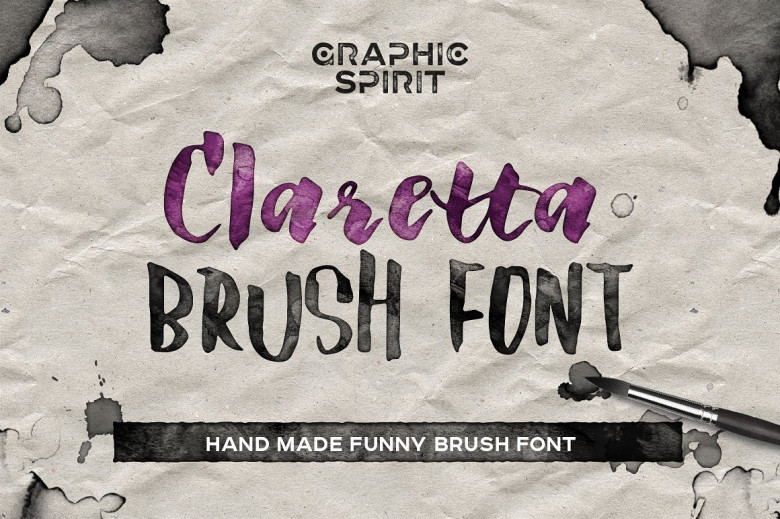
Claretta Brush Font
Introduced to you hand made funny brush font. Introducing Claretta Font. Claretta designed and shared by Graphic Spirit. Claretta is the best fonts and very elegant to beautify your design. suitable in use for product brand, label, banner, product cover, photo, decoration, business card, company name, logo name, and others. Created with expert fonts and 6 years of experience.